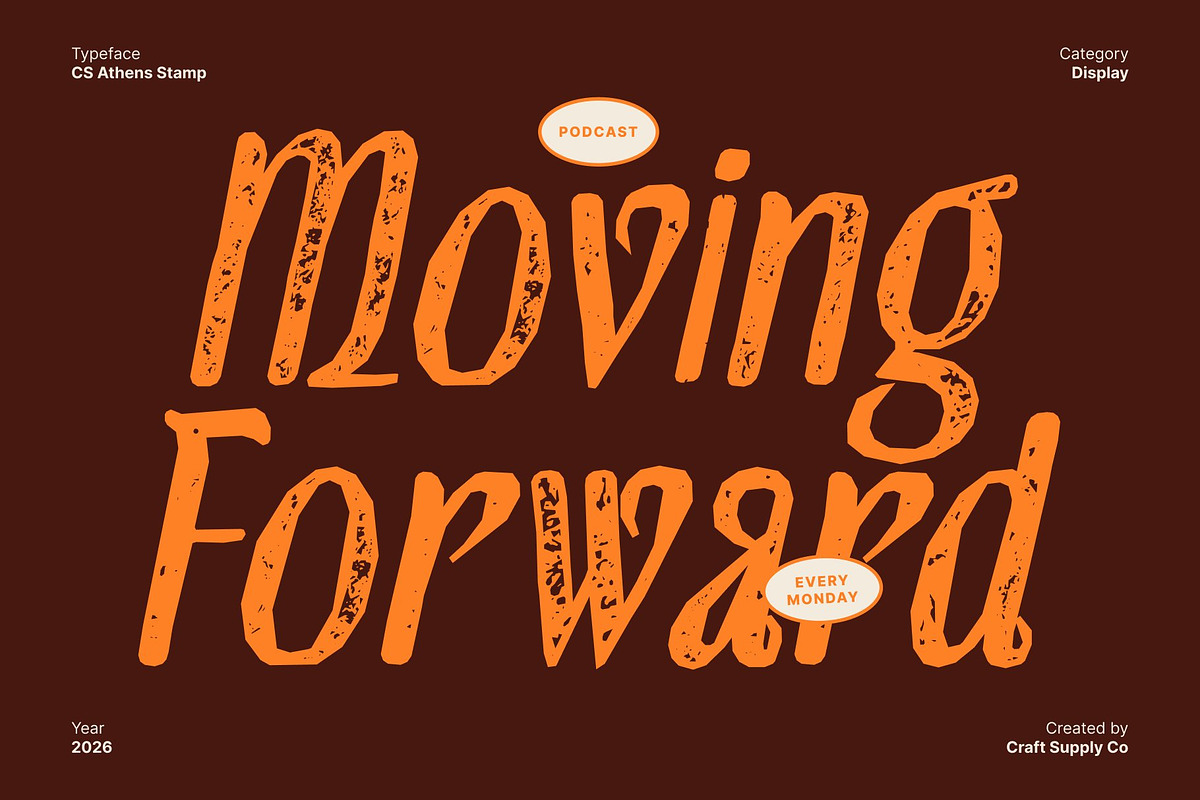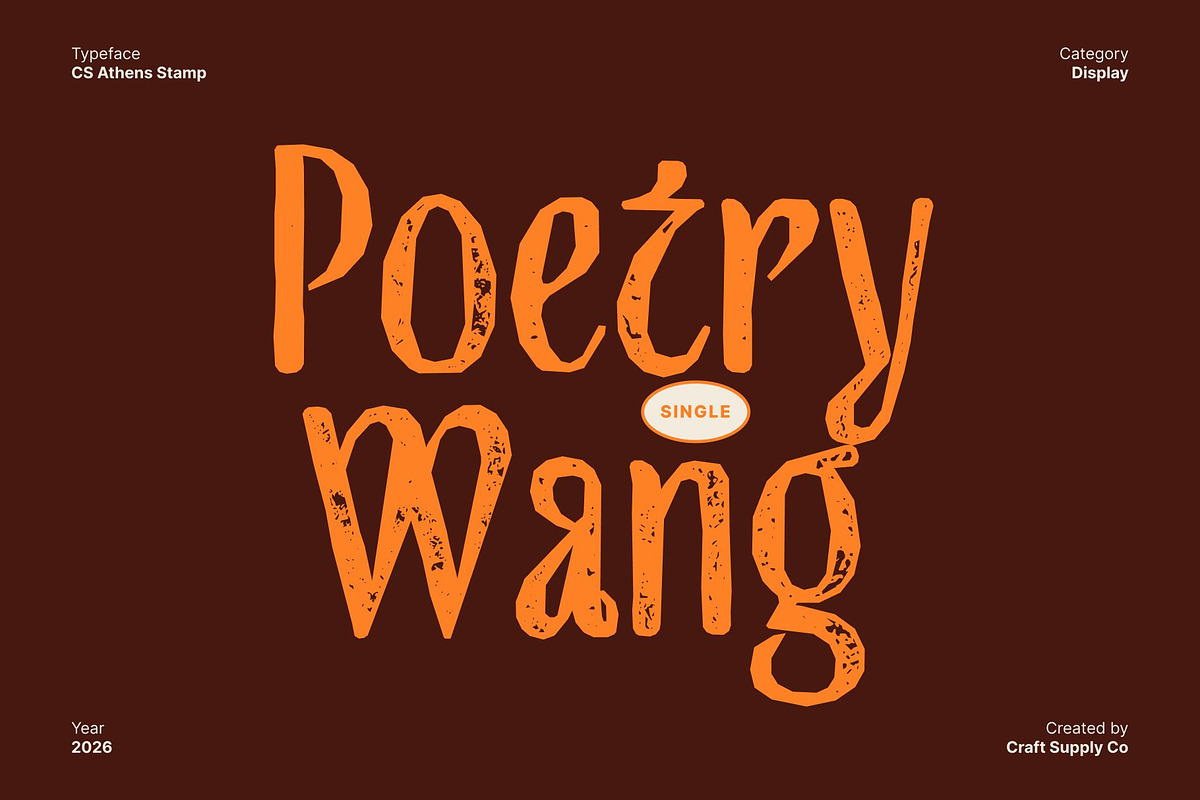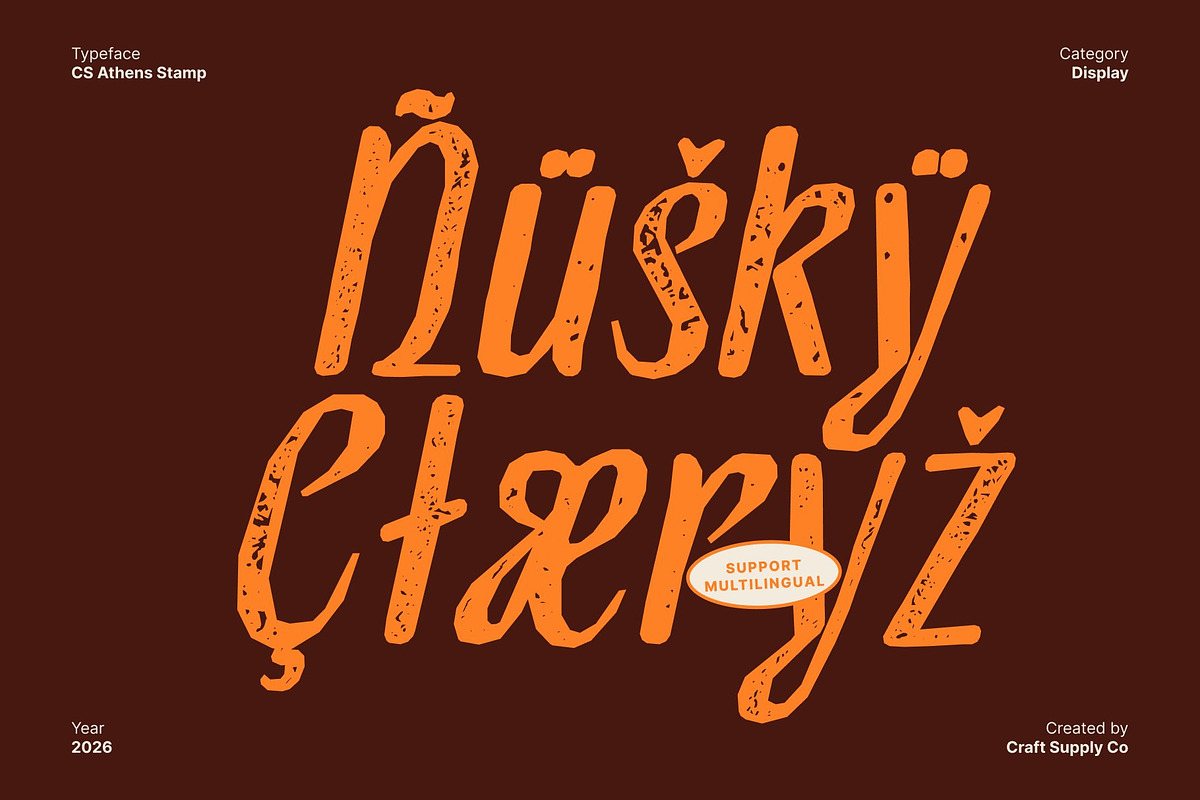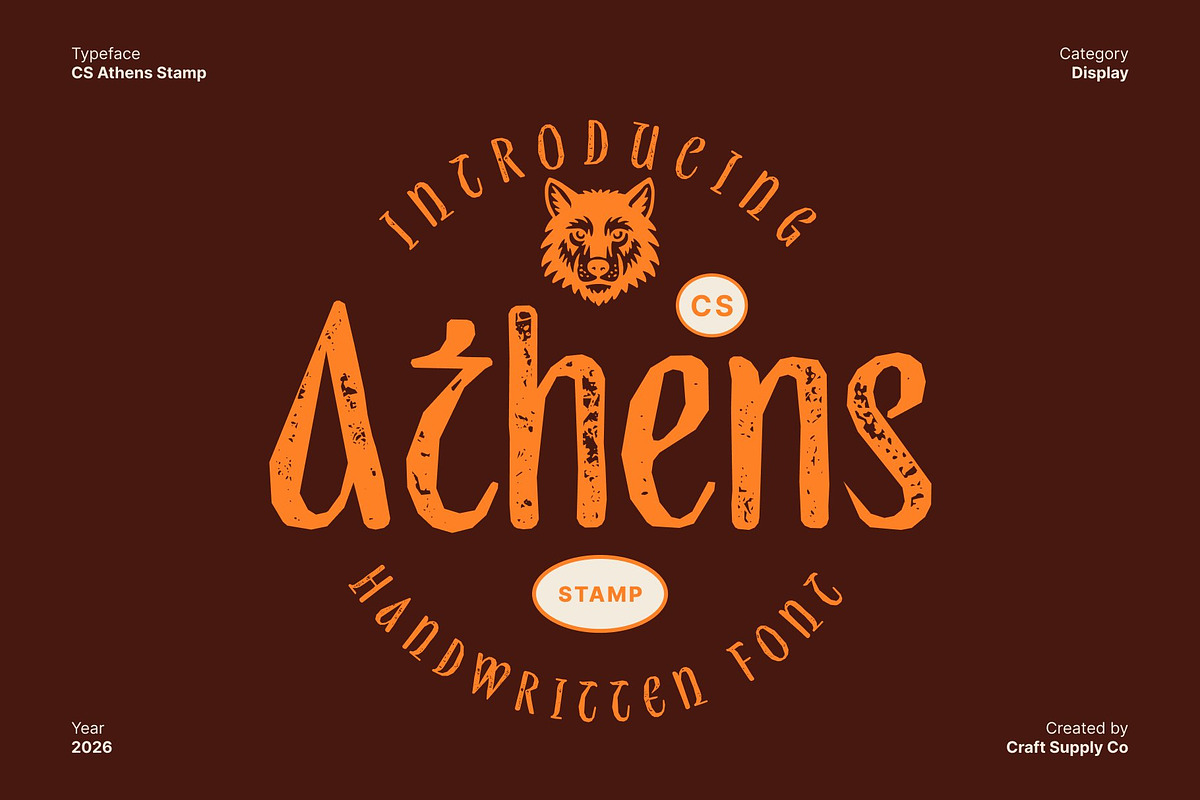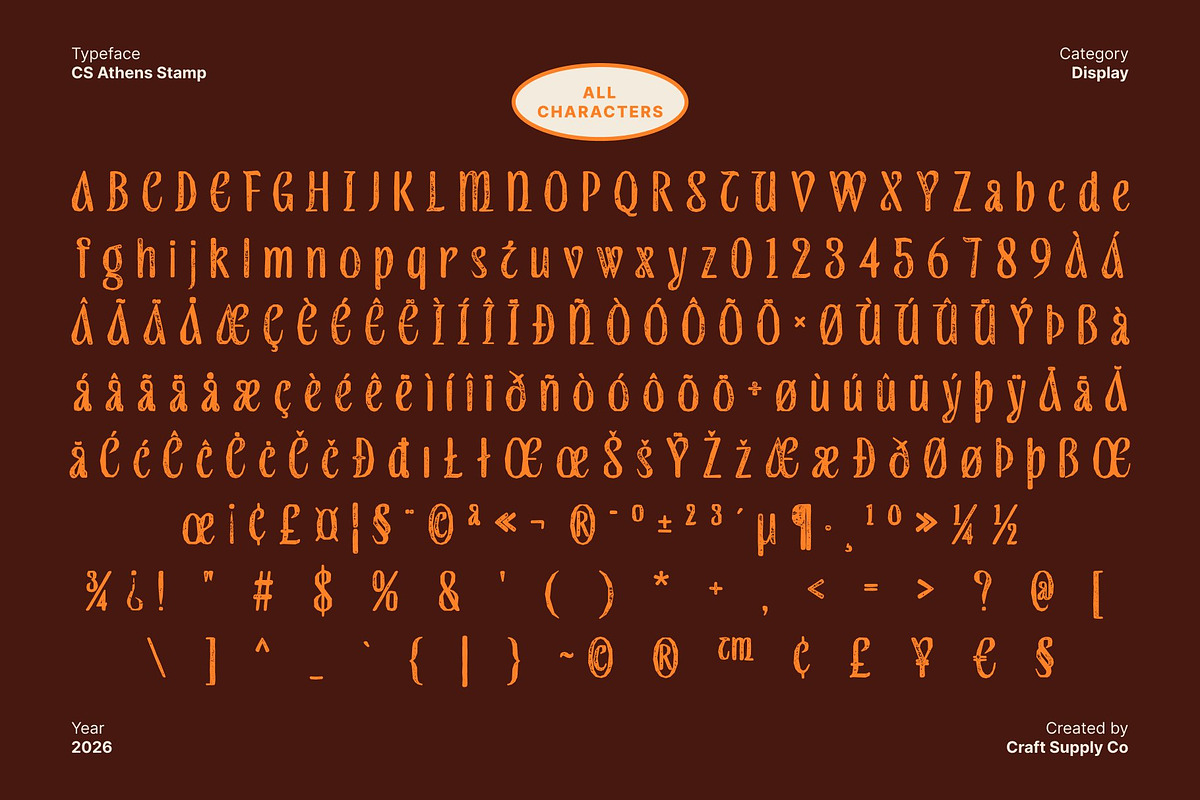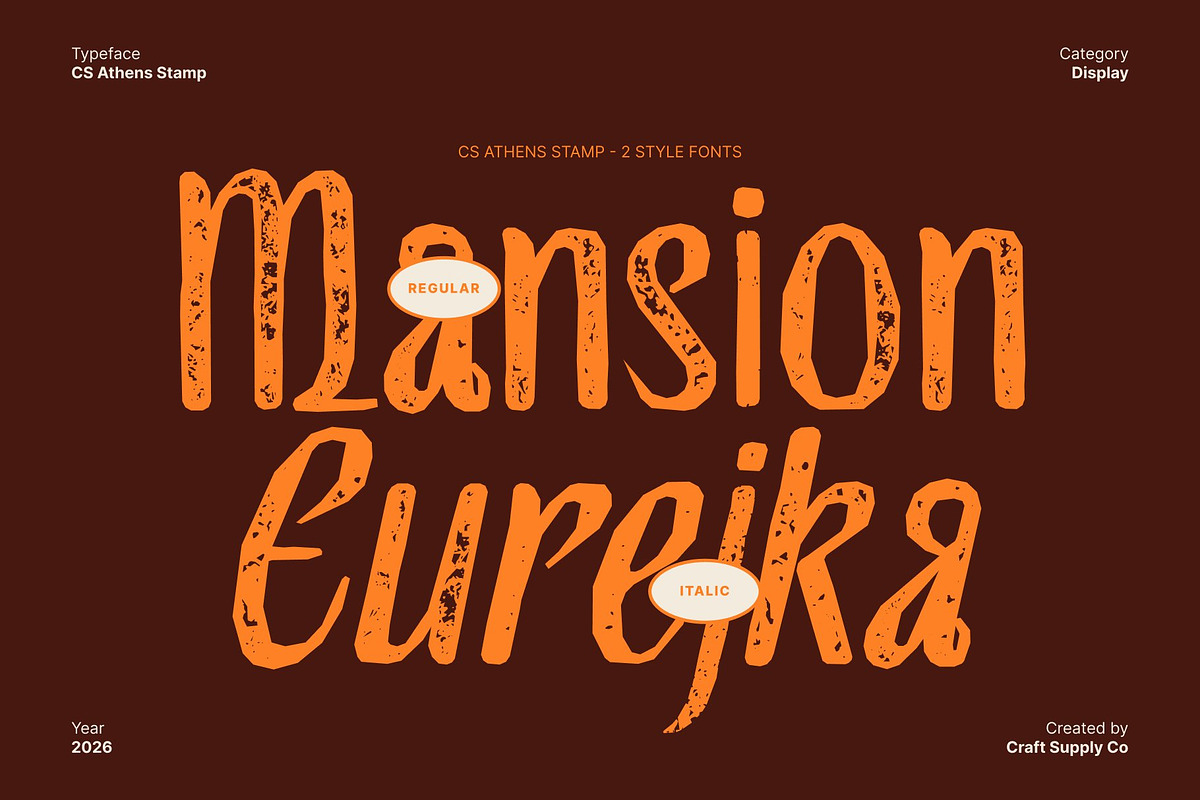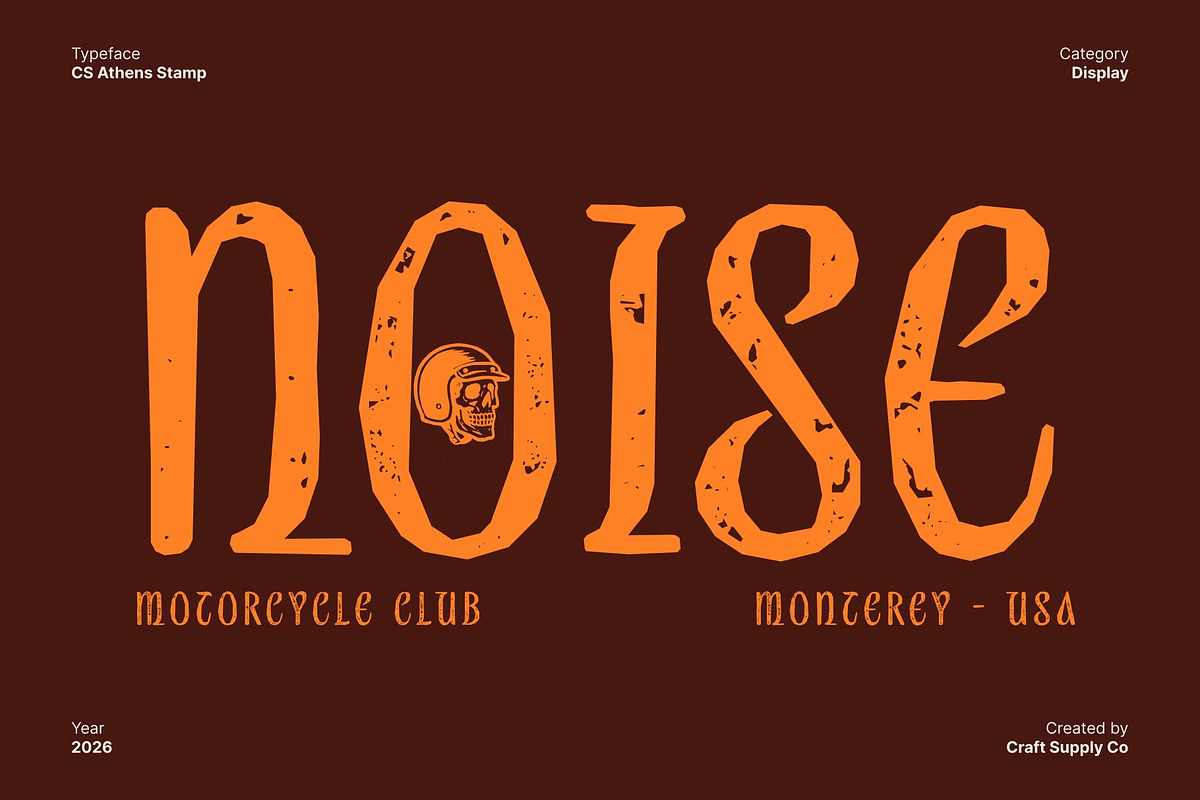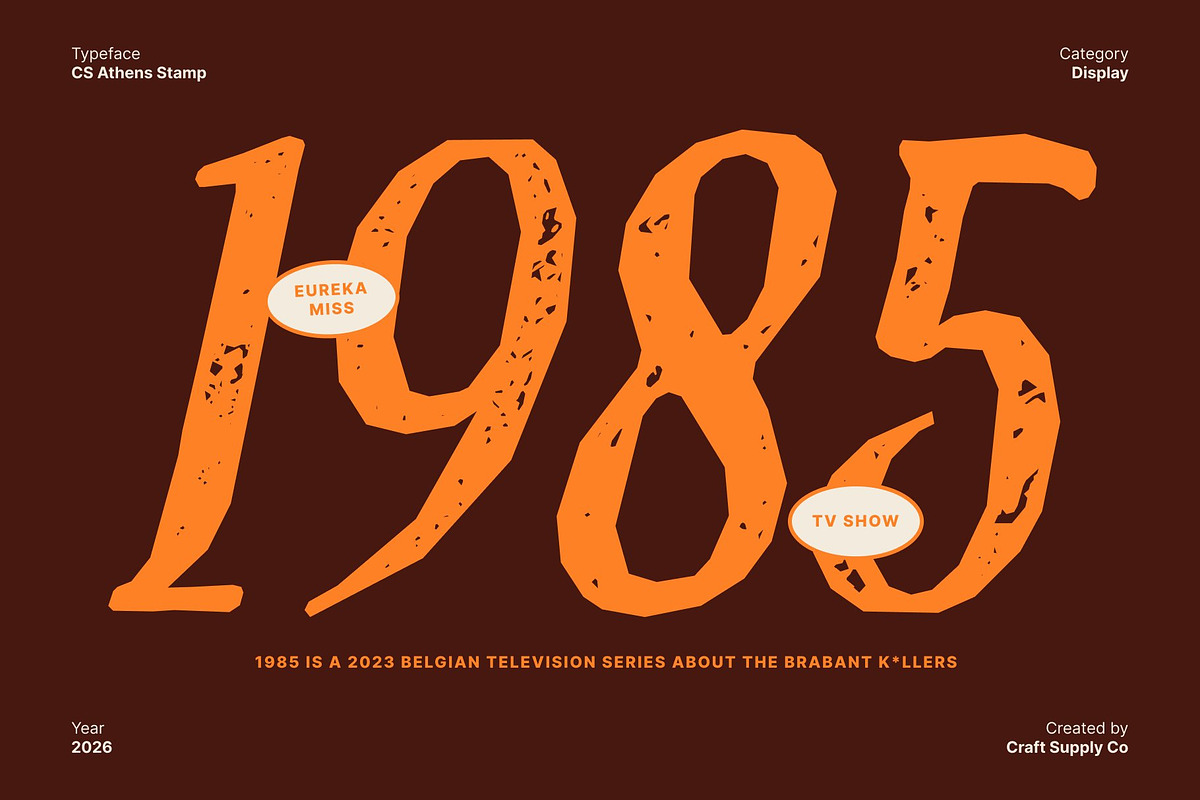
CS Athens Stamp
CS Athens Stamp – Elegant Font: Timeless Grace and Sophistication
Modern Display Font with Refined Elegance This is a modern display font crafted to express sophistication, grace, and understated luxury. Its sleek letterforms, balanced proportions, and refined structure create a timeless aesthetic that feels both classic and contemporary. Designed to elevate visual communication, this font delivers a polished presence ideal for high-end branding, editorial layouts, and formal design applications.
Soft Contrast for a Luxurious Visual Rhythm Featuring gentle contrast between thick and thin strokes, this font achieves a smooth and elegant typographic flow. The soft transitions add fluidity and visual harmony, giving each word a graceful, composed appearance. This refined contrast enhances the font’s luxurious tone while maintaining clarity and legibility.
Stamped Texture for Authentic Character The stamped style introduces a subtle roughness and organic imperfection to the elegant letterforms. This textured finish adds depth and character, creating a sense of authenticity and handcrafted charm. The combination of refined structure and stamped texture results in a sophisticated vintage feel elegant yet expressive, polished yet human.
Perfect for Luxury Branding and Exclusive Design This is an excellent choice for fashion labels, premium products, boutique branding, and upscale visual identities. Its elegant construction reinforces a sense of prestige and professionalism, while the stamped texture adds warmth and uniqueness that prevents the design from feeling overly sterile.
CS Athens Stamp Regular
CS Athens Stamp Italic